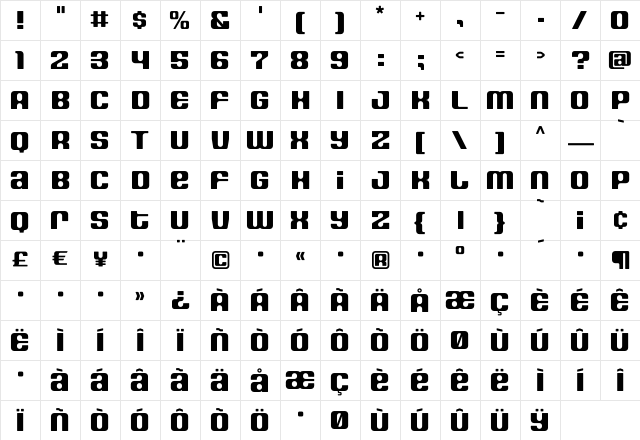
HOUSE3009 Spaceage-Heavy-Round
Design Context for HOUSE3009 Typeface
HOUSE3009 uses gentle rounded endings to create a warm, inviting typographic personality — less corporate than geometric sans, more refined than playful display fonts.
A natural fit for tech startups, health and wellness brands, children's products, and friendly consumer apps.
Font Pairing: Pairs well with a rounded or humanist sans for body copy, maintaining the friendly tone without relying on HOUSE3009 to carry extended reading.
Pro Tip: Pair HOUSE3009 with a geometric sans for a balanced system — the rounded softness works as a warm counterpoint to harder-edged companions.